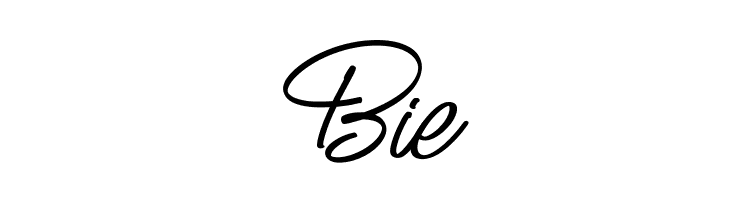
A bold, expressive script font with a brush-like texture and dynamic letterforms.
A cursive, handwritten-style font with elegant, flowing strokes.
A fluid, cursive font with interconnected letters and a natural handwriting style.